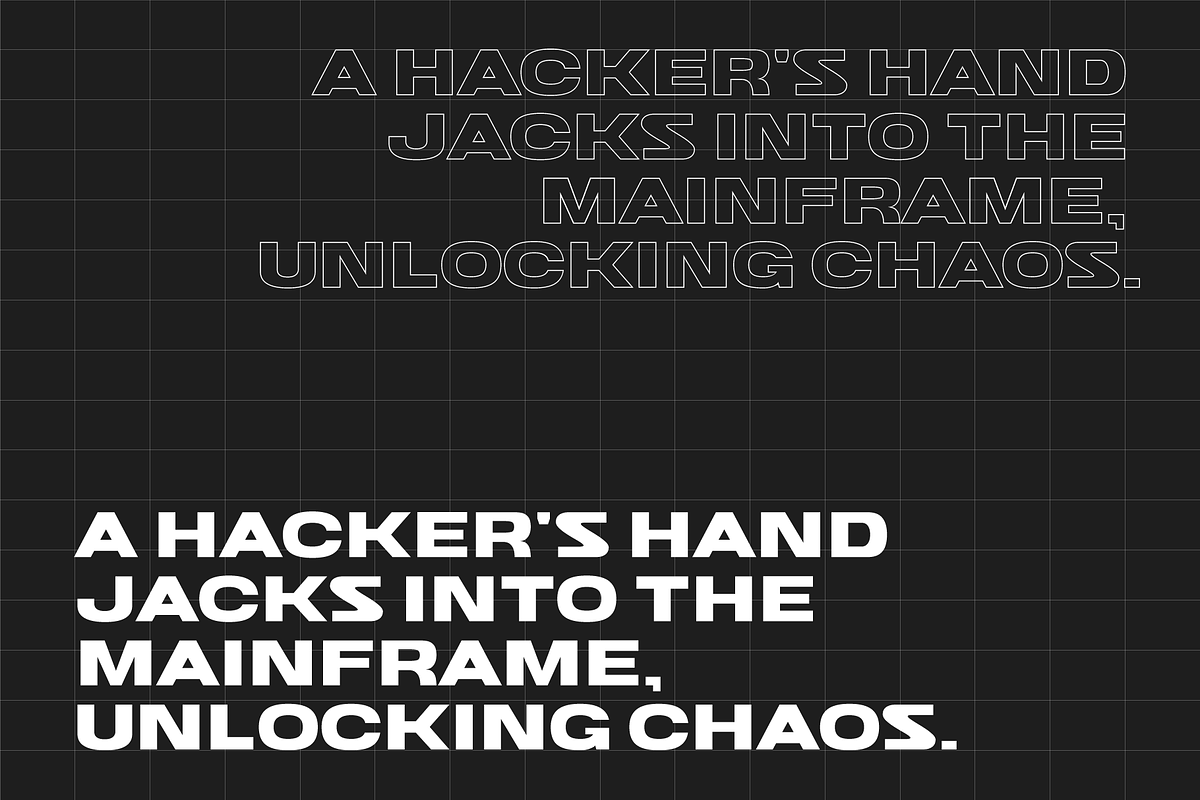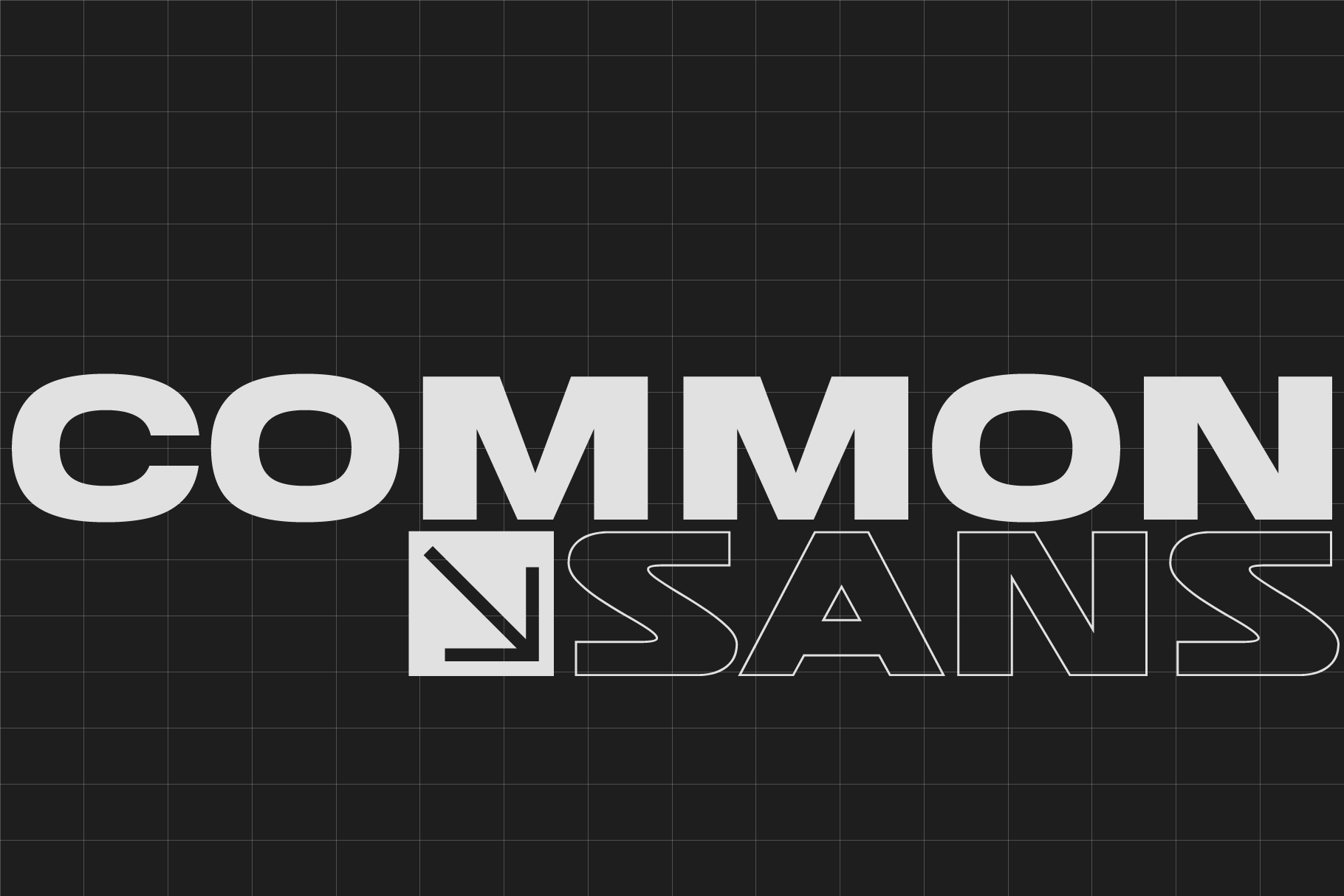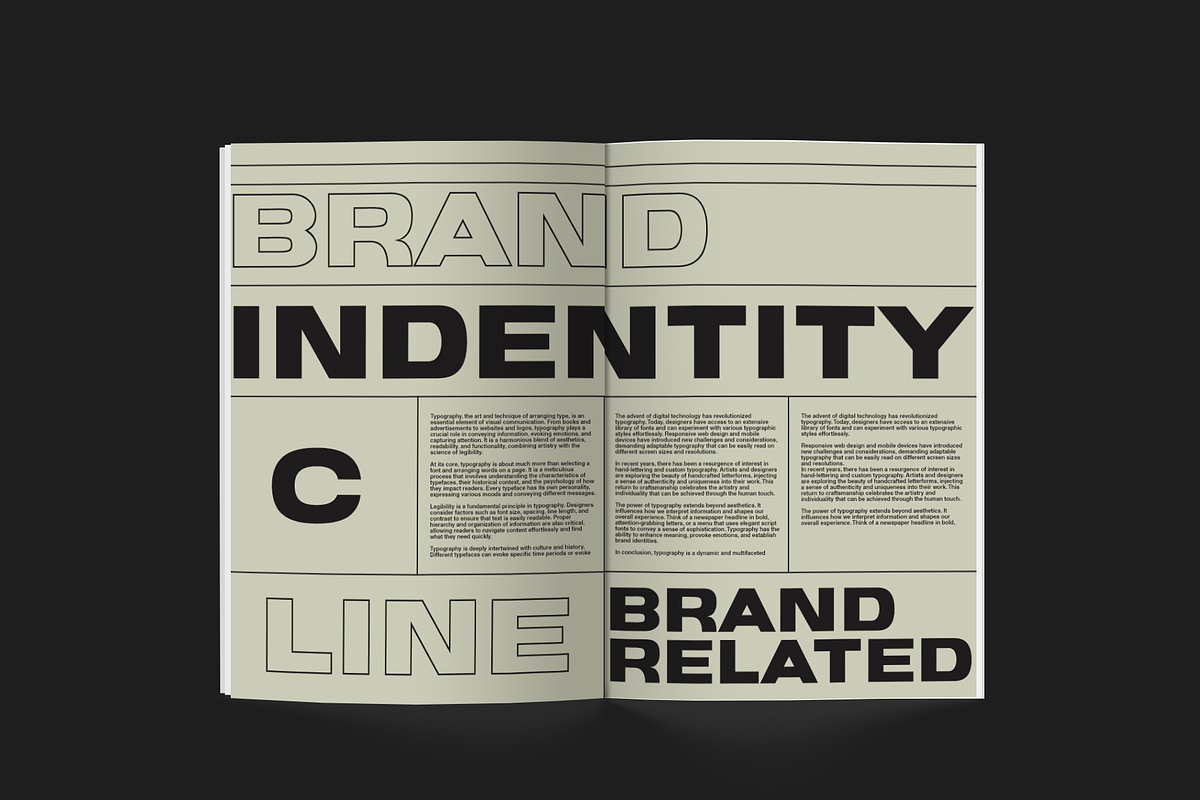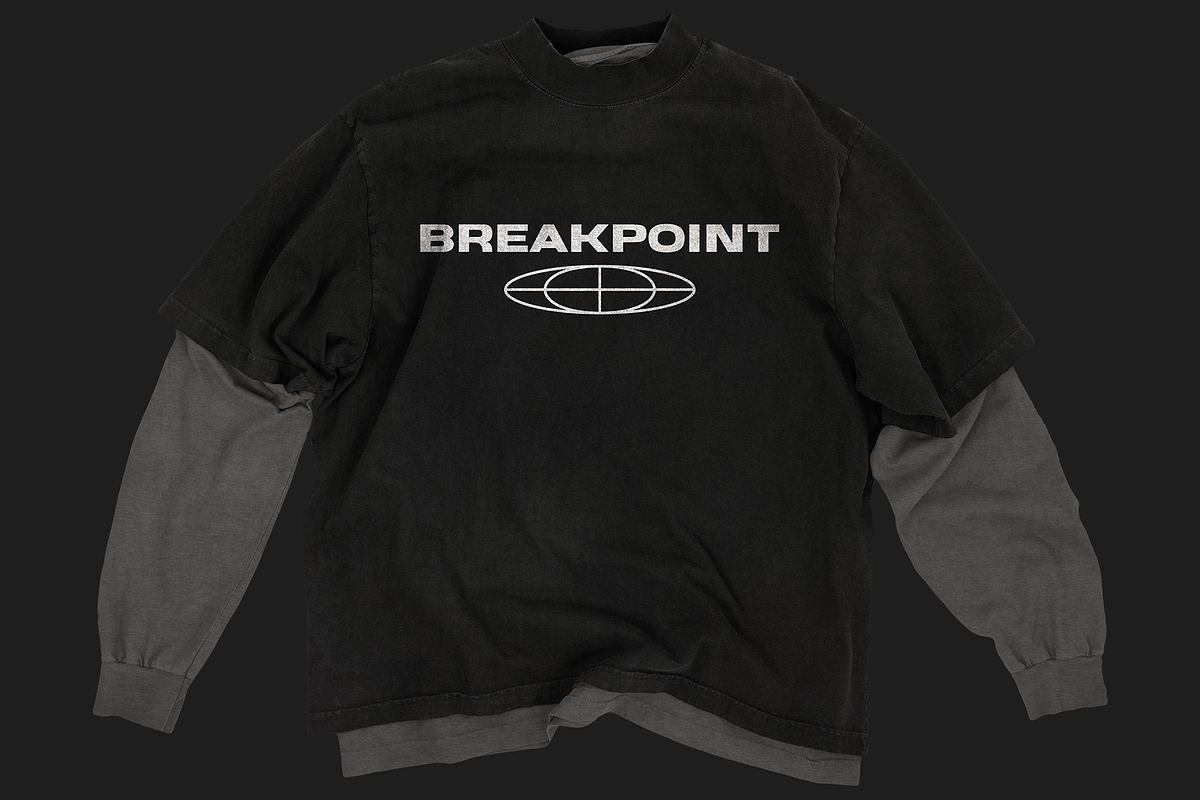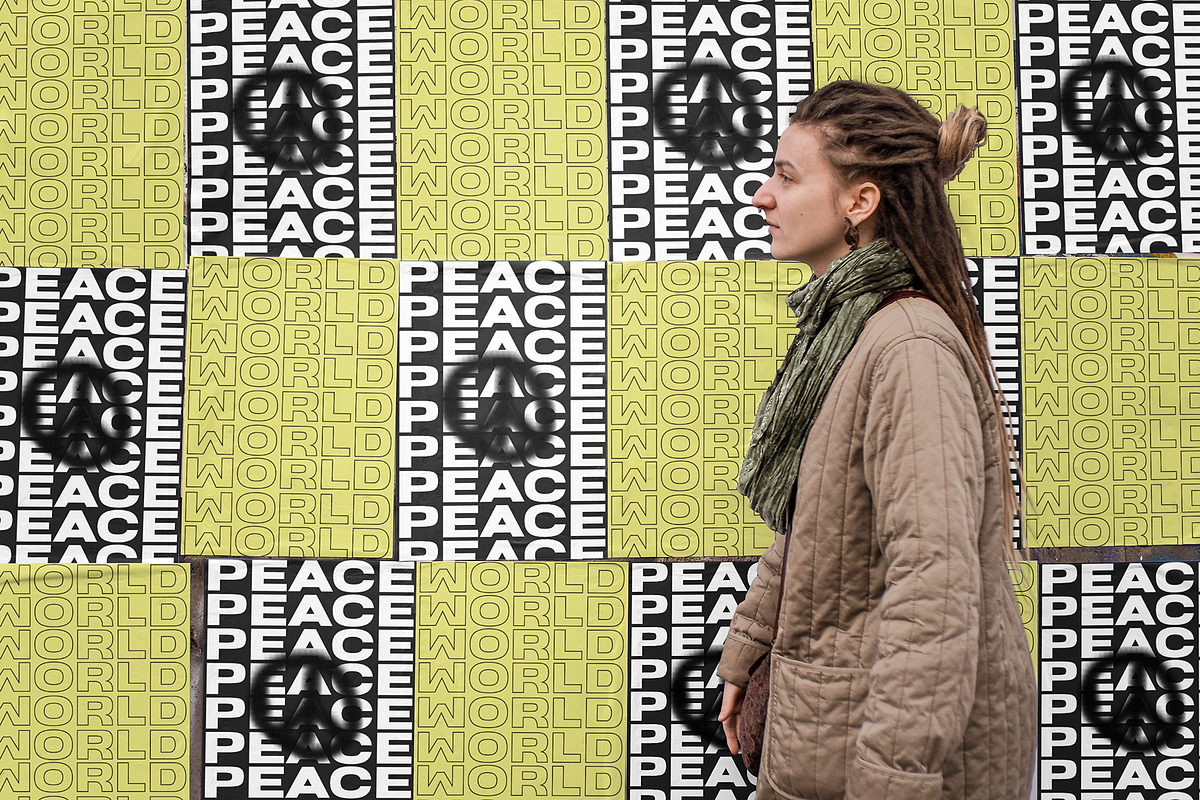
"Common Sans" Wide Display Font
"COMMON SANS" is a typeface that commands attention with its expansive letterforms and bold presence. With its wide and spacious characters, it creates a captivating visual impact, perfect for headlines, signage, and branding projects. The generous letter spacing ensures maximum legibility even at large sizes, making it ideal for eye-catching displays. Whether you're designing a striking poster or creating a standout logo, the "COMMON SANS" offers a powerful typographic solution that captures the essence of boldness and prominence.